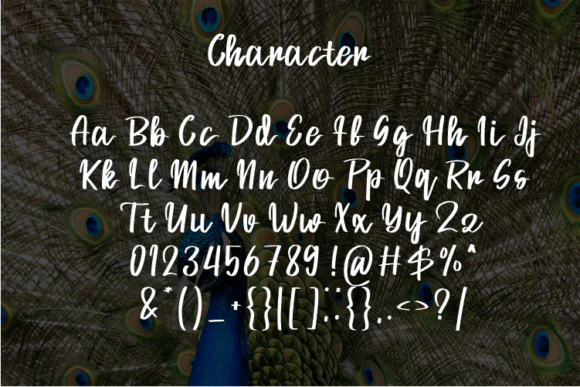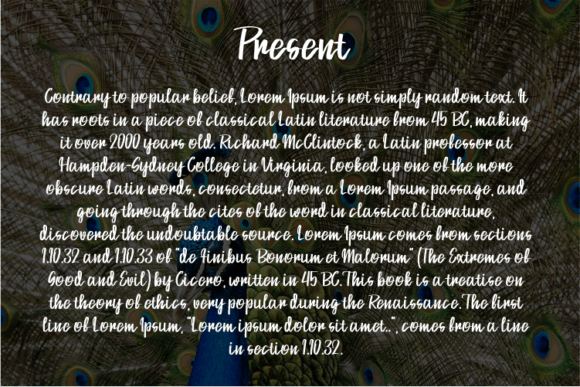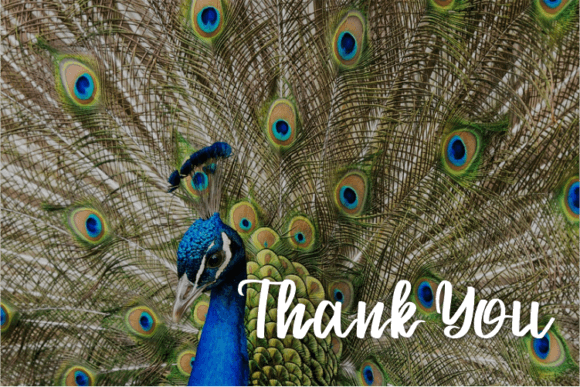
Discover the Elegance of Amelia Font: A Simple yet Modern Script Typeface
In the world of typography, a font can make all the difference in the aesthetic and tone of a design. For those seeking a script typeface that exudes elegance and luxury, look no further than the Amelia Font. With its simple style and modern look, Amelia is the perfect choice for a wide range of design applications, from logos and titles to fashion brands and quotes.
The Characteristics of Amelia Font
Amelia Font is a script typeface that boasts a clean and minimalist design. Its simple style is characterized by smooth lines, flowing curves, and a modern aesthetic that is both sophisticated and refined. The font’s elegance lies in its understated approach, making it an excellent choice for designers who want to add a touch of luxury to their work without overpowering it.
Perfect for Elegant and Luxurious Designs
Amelia Font is specifically designed to add a touch of elegance and sophistication to any design project. Its modern look and feel make it perfect for:
- Elegant Logos: Create a luxurious brand identity with Amelia Font, perfect for high-end businesses and services.
- Book and Movie Titles: Add a touch of sophistication to your book or movie titles with Amelia Font, ideal for drama, romance, and art-house productions.
- Fashion Brands: Elevate your fashion brand with Amelia Font, suitable for luxury clothing, accessories, and beauty products.
- Magazines and Publications: Use Amelia Font to add a touch of elegance to your magazine or publication, perfect for lifestyle, fashion, and art-focused content.
- Clothing and Apparel: Create stylish and sophisticated clothing and apparel with Amelia Font, ideal for high-end fashion brands.
Versatility and Readability
Amelia Font is not only elegant but also highly versatile and readable. Its clear and flowing design makes it easy to read, even at smaller font sizes. This makes it perfect for a wide range of applications, from headlines and titles to body text and quotes.
Tips for Using Amelia Font
To get the most out of Amelia Font, consider the following tips:
- Pair with contrasting fonts: Combine Amelia Font with a contrasting font to create visual interest and add depth to your design.
- Use for headlines and titles: Take advantage of Amelia Font’s elegance and use it for headlines and titles to add a touch of sophistication.
- Experiment with colors and textures: Try pairing Amelia Font with different colors and textures to add a unique touch to your design.
Amelia Font is a beautiful script typeface that offers a simple yet modern look, perfect for elegant and luxurious designs. Its versatility, readability, and sophisticated aesthetic make it an excellent choice for designers and crafters looking to add a touch of elegance to their work. Whether you’re creating a logo, title, or quote, Amelia Font is sure to impress.